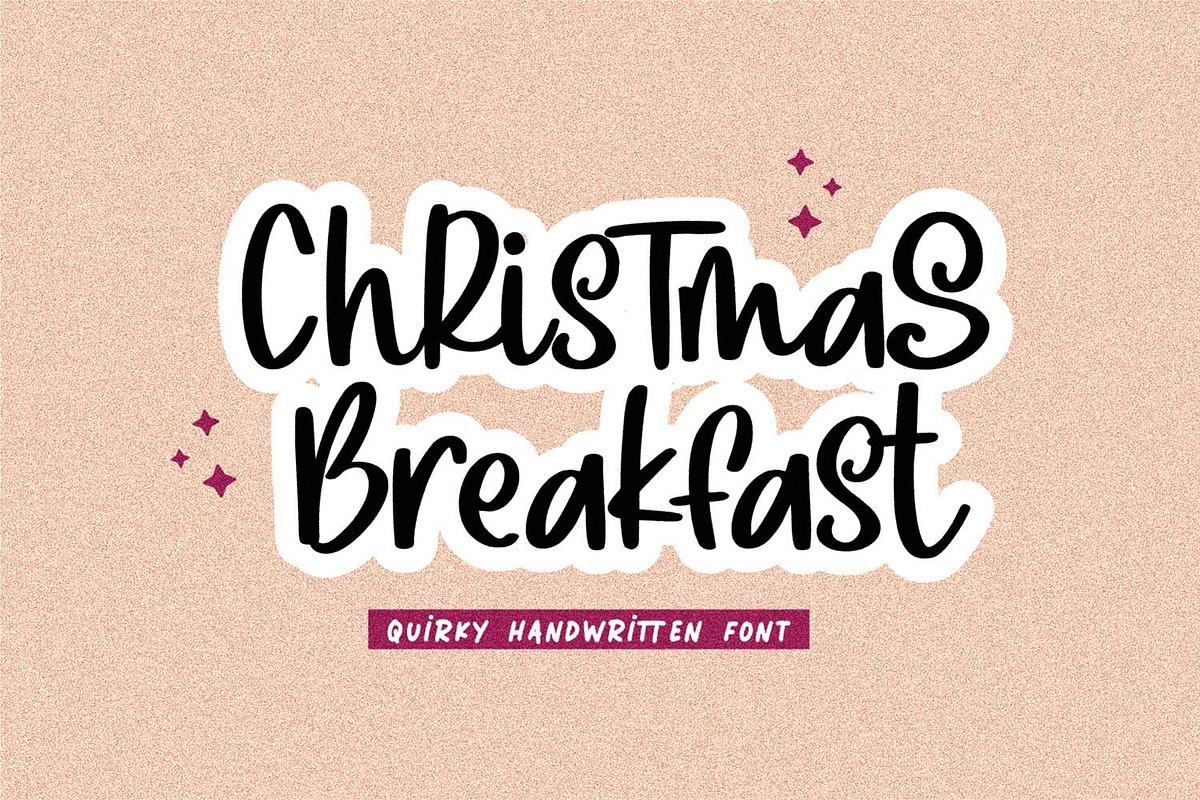
Festive, cozy, and full of charm, Christmas Breakfast Font Free Download is a delightful, playful typeface inspired by the holiday season. Perfect for Christmas cards, holiday invitations, social media graphics, gift packaging, and festive branding, this font captures the warm and joyful spirit of the holidays with its cheerful, rounded design.
With its smooth lines and fun, casual style, Christmas Breakfast is ideal for creating designs that feel warm, inviting, and full of holiday cheer. Whether you’re creating family-friendly graphics, seasonal promotions, or personalized holiday messages, this font will bring joy to your typography.